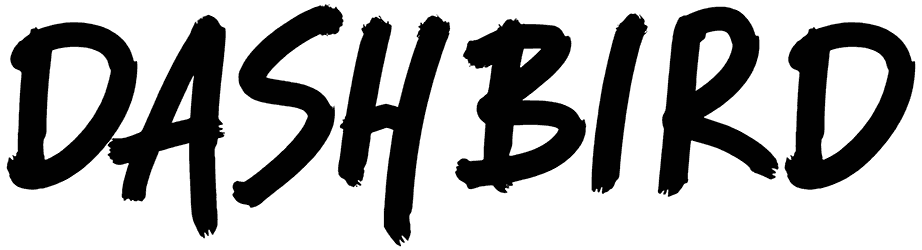
Dashbird Font
Every time you feel like your lettering could have displayed a stronger artistic touch, Dashbird will solve your problem. As long as you don’t need any lowercase for your design, you can get one hell of a job done with this script font.
This 80s brush font and its casually handwritten letters perfectly handle your website banners, and signs for promoting businesses like recreational classes, art studios, or party planning, as well as labeling summer dresses, stationery items, or other similar products.